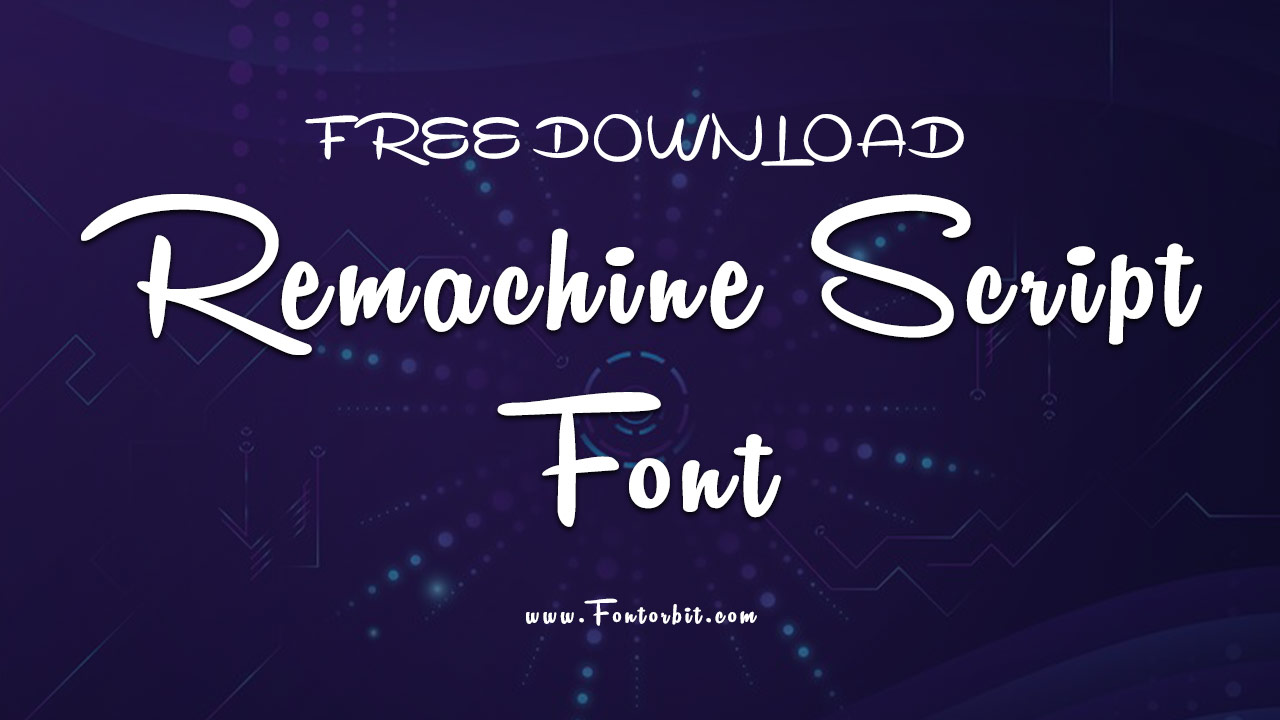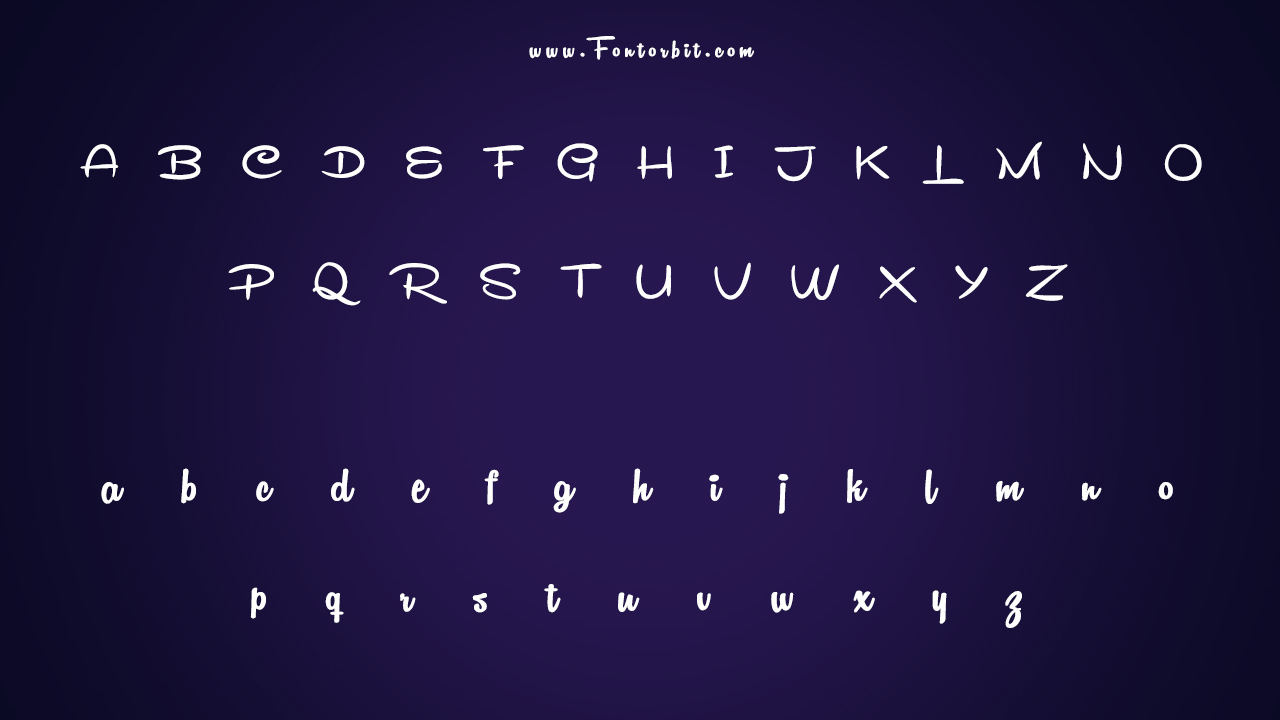
Remachine Script is an elegant script font designed by Mans Greback and published on MyFonts. The font, known for its flowing and sophisticated script style, was created to add a touch of finesse to your designs. It belongs to the Script font family, characterized by its smooth and stylish letterforms.
Remachine Script Family Includes
Remachine Script is part of the Remachine family, which includes:
Remachine Script Regular
Notable Uses Of Remachine Script:
Remachine Script is a versatile font suitable for a variety of applications. Its elegant script style makes it ideal for:
- Wedding invitations
- Greeting cards
- Branding materials
- Event posters
- Personal and professional stationery
Where Should I Use This Font:
This font works well in settings where a sophisticated and graceful touch is desired. It is perfect for high-end branding projects, stylish invitations, and any design that conveys elegance and refinement.
Last Words:
Remachine Script is a fantastic choice for adding an elegant and refined touch to your designs. Its graceful curves and stylish appearance stand out in various applications, from invitations to branding. Explore the options and find the perfect way to use this beautiful script font in your next project.